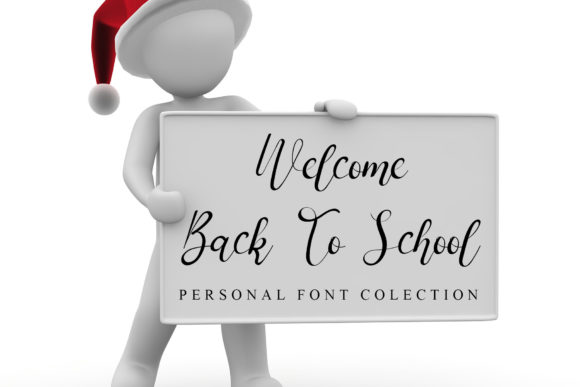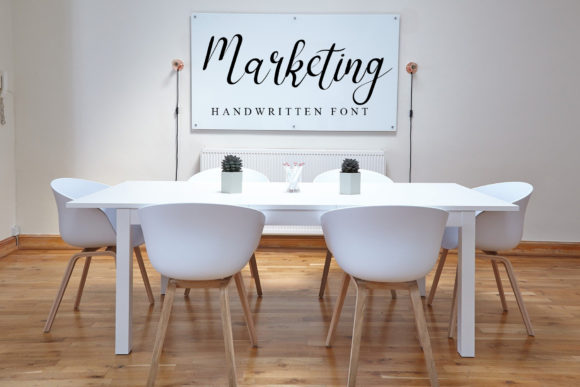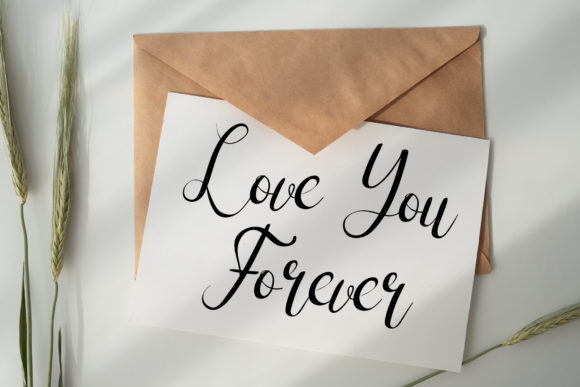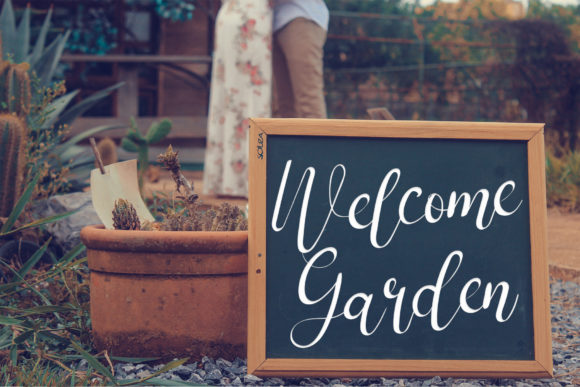
About Simple Kitchen Font
Simple Kitchen is a sweet and cursive handwritten font. This gentle font will look gorgeous on a variety of design ideas. It will add a joyful and romantic touch to each of your projects!